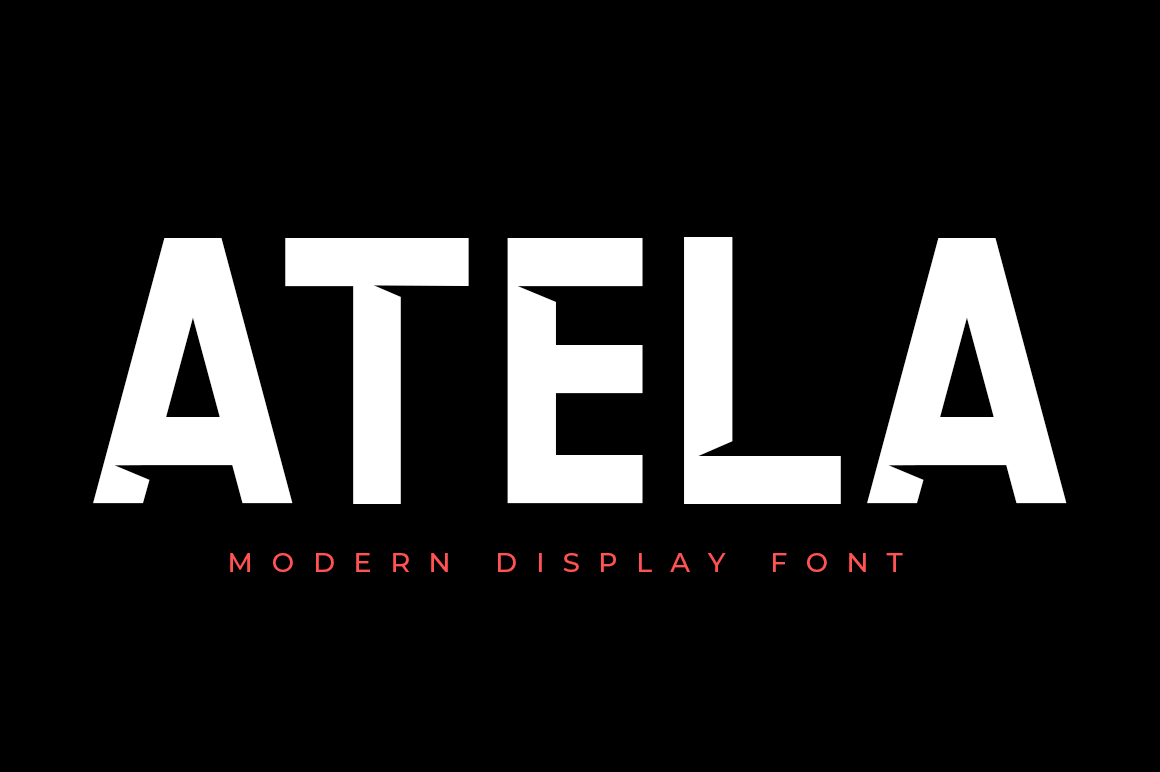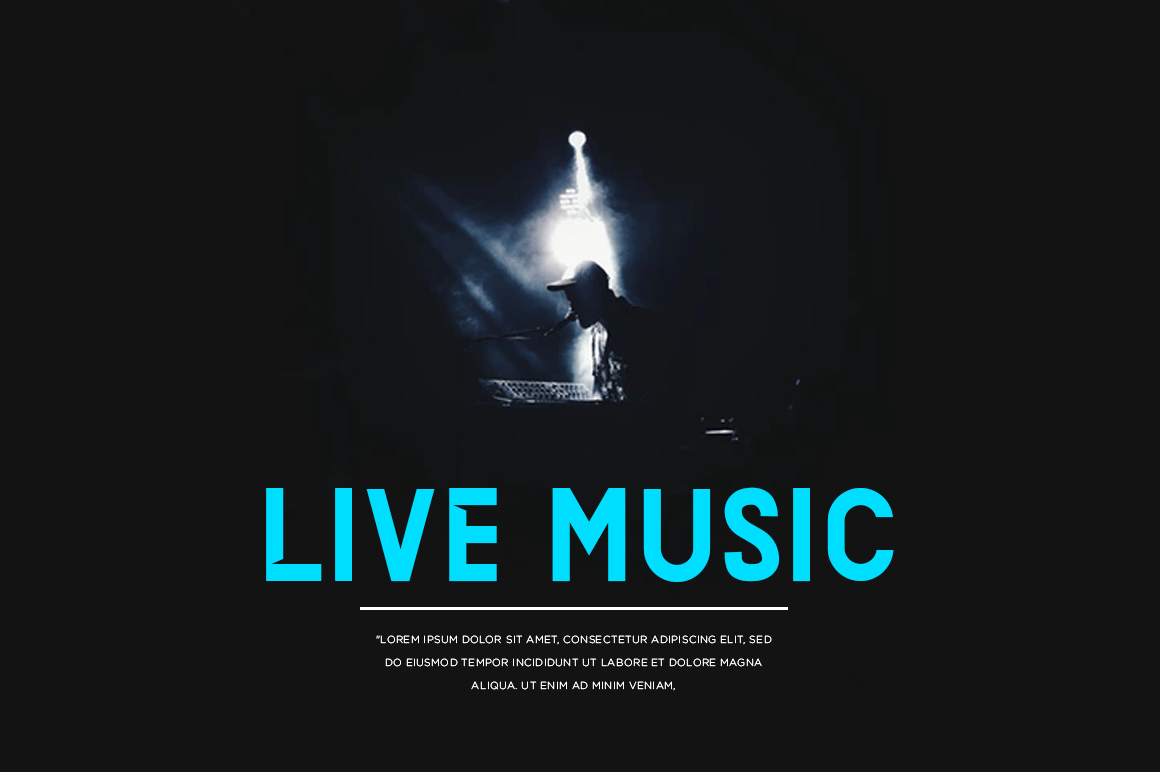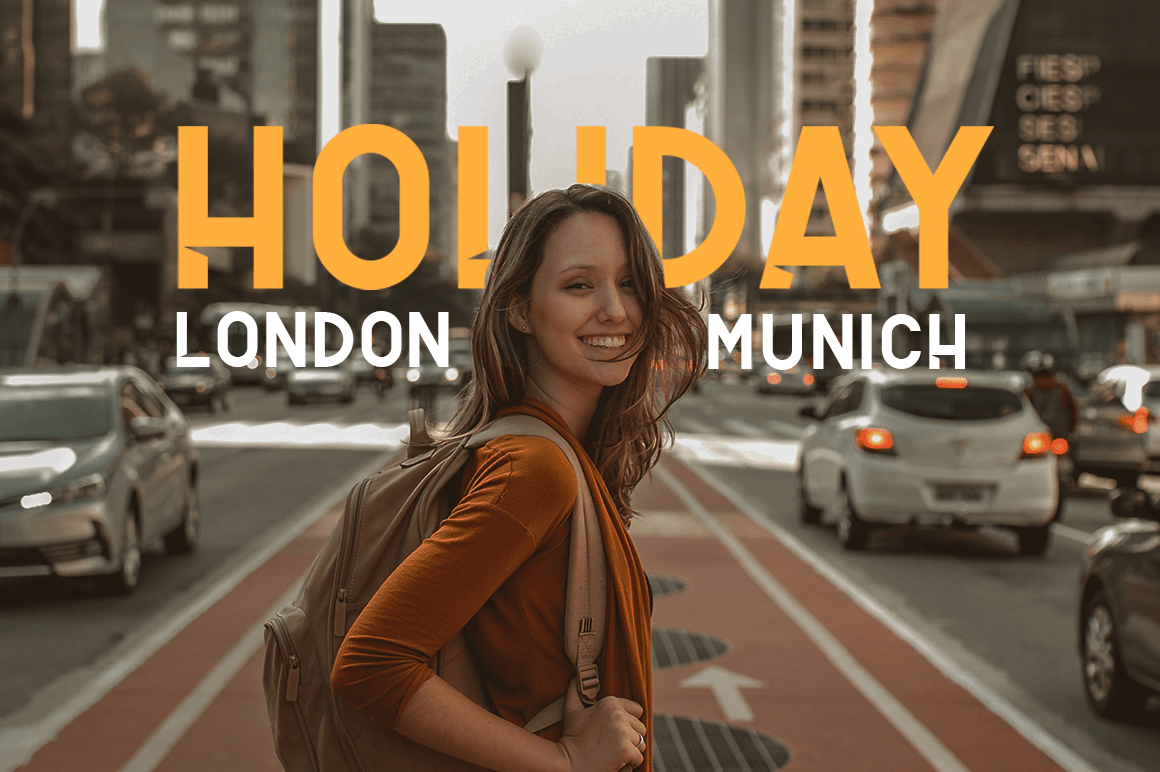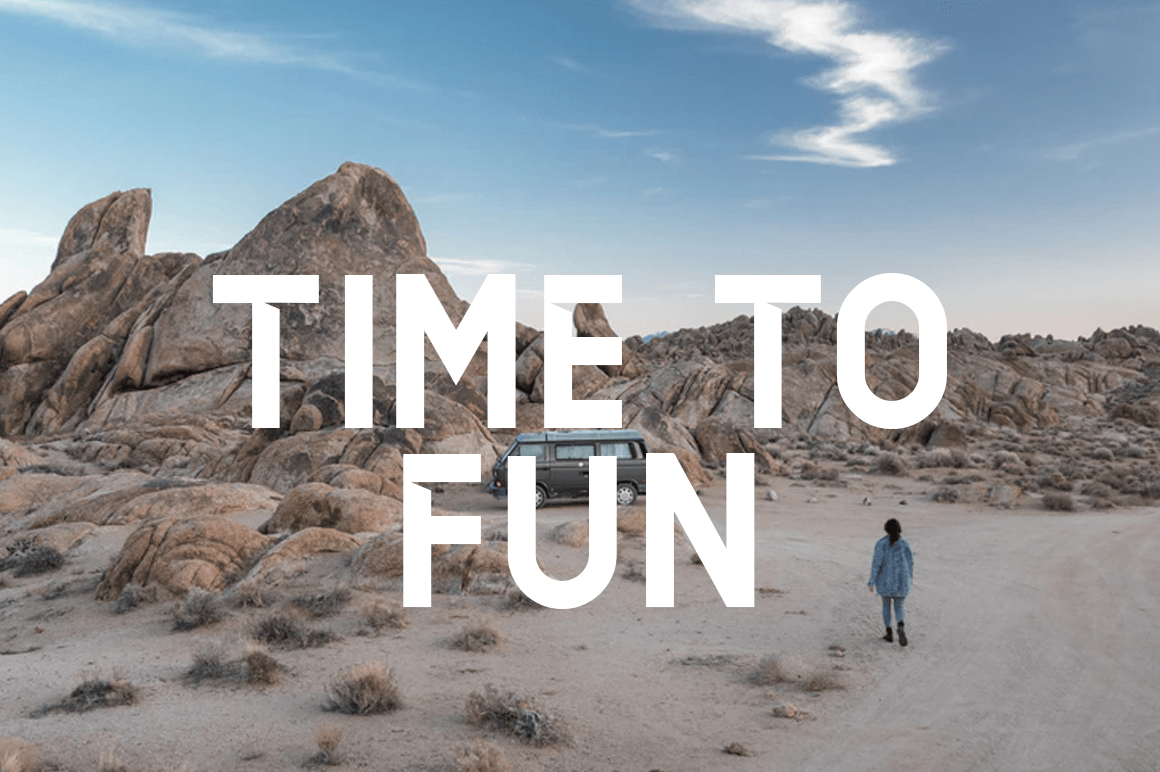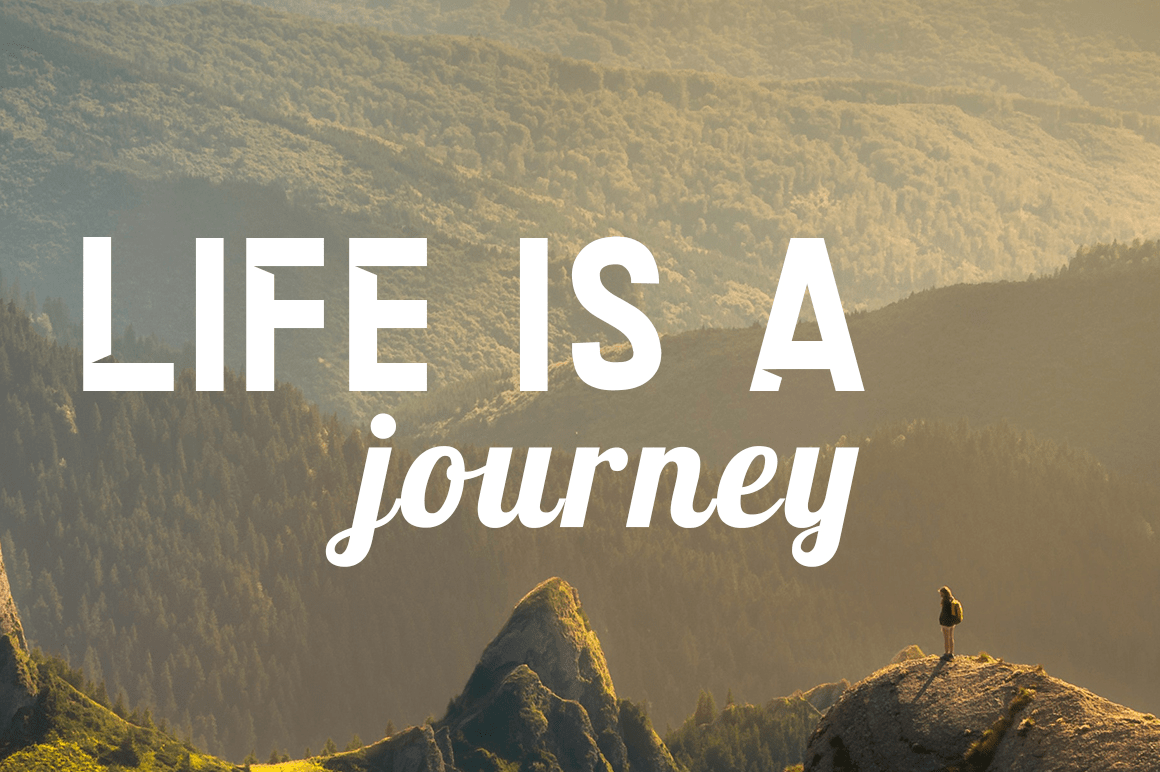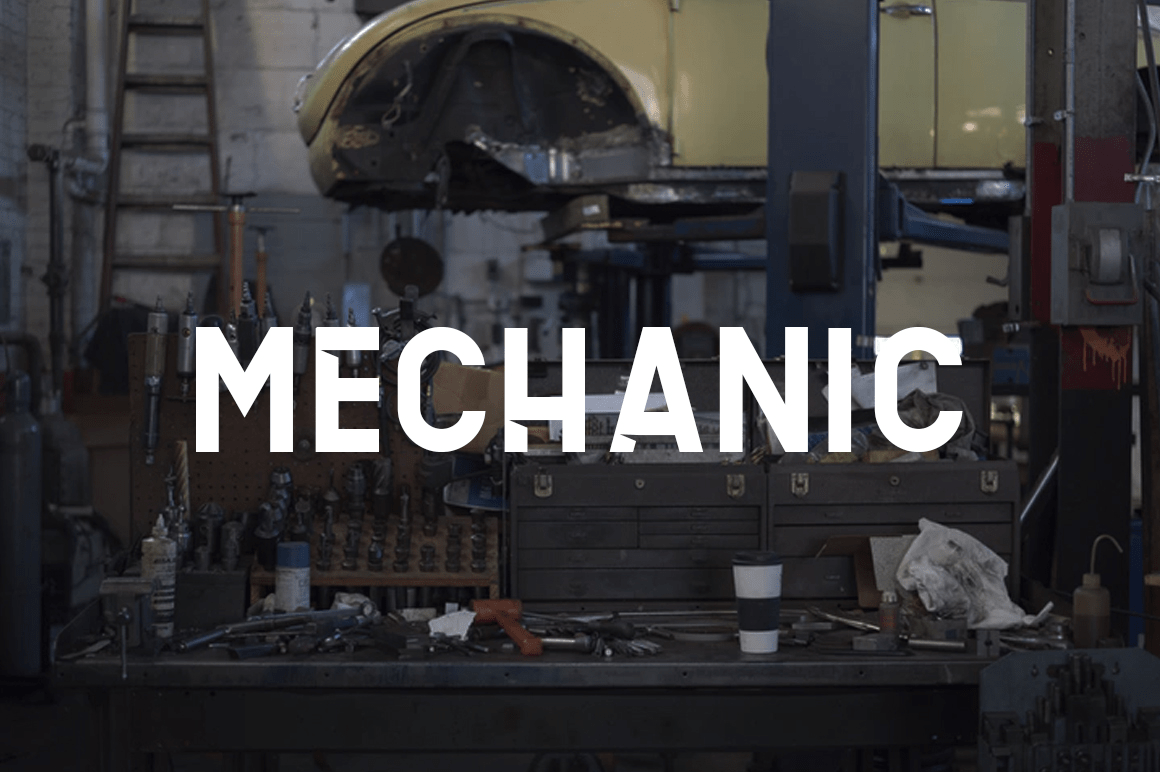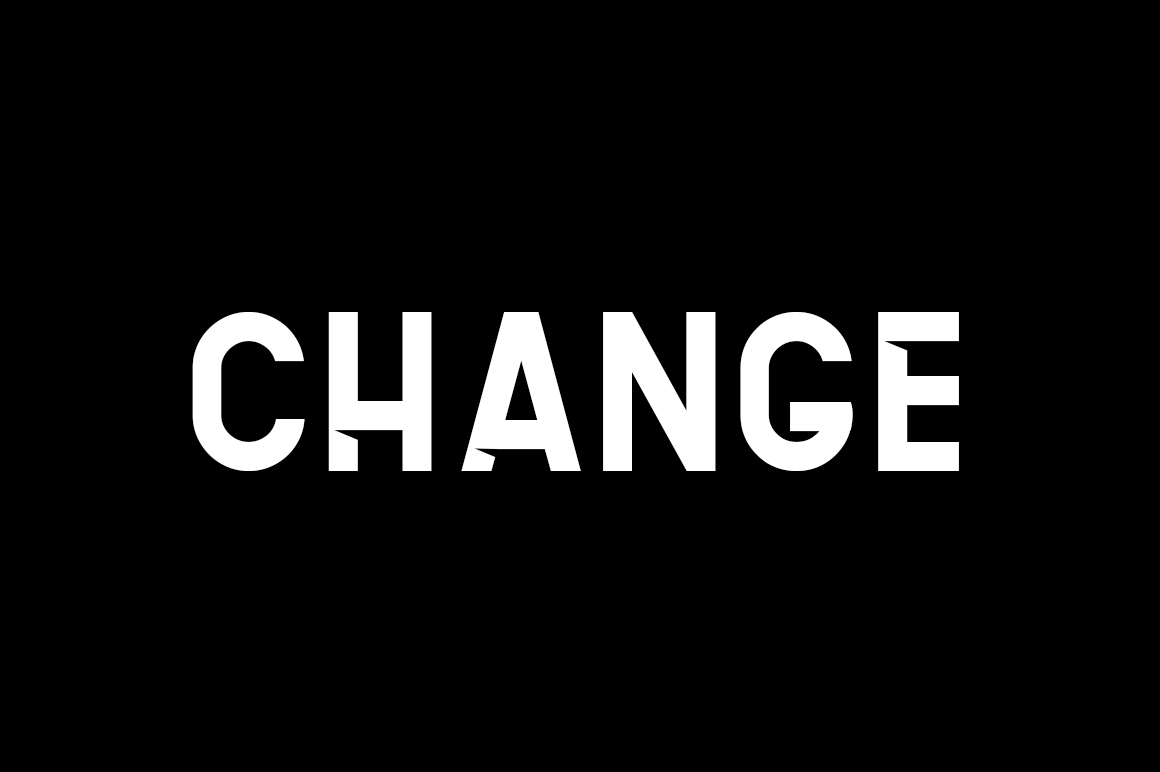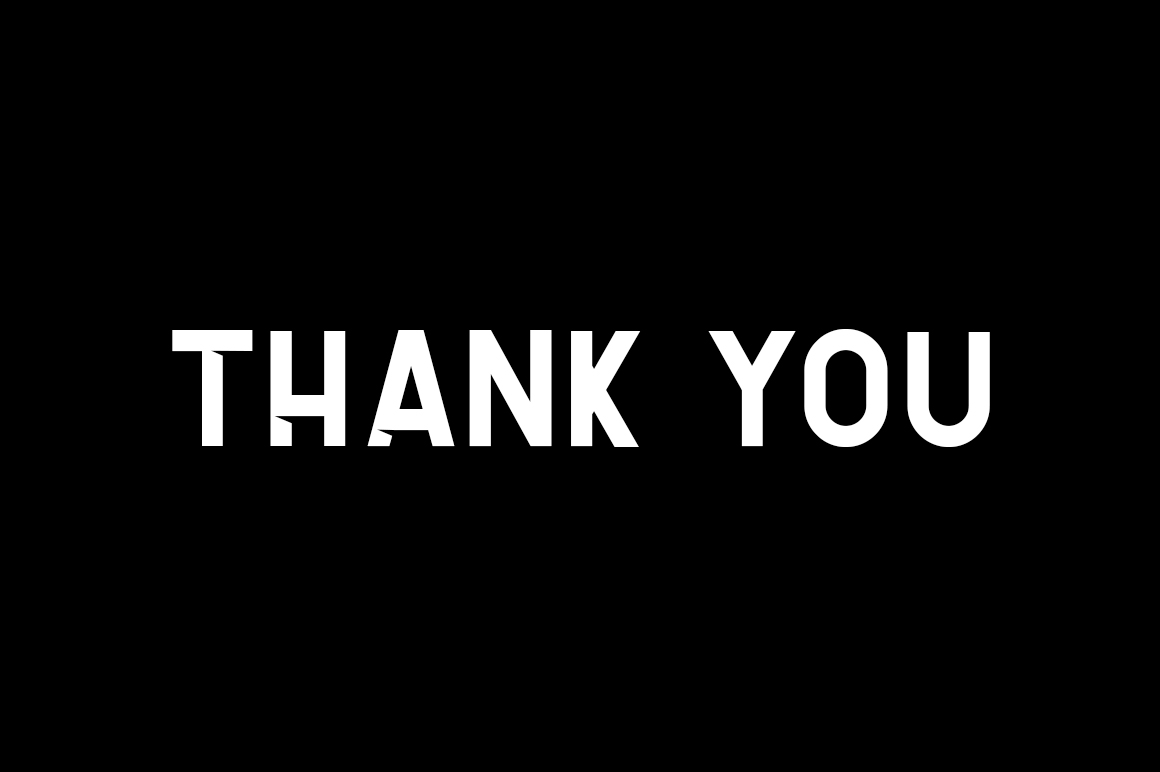
Atela
Font Family by Eldertype Studio
ATELA FONT is the Unique and Bolg Sans Serif. this font perfect for adding some romance and charm to your designs. This script functions most strongly as a display or headline font. suitable for logo, logotype, branding, fashion, label, book cover, t-shirt, instagram post, and other